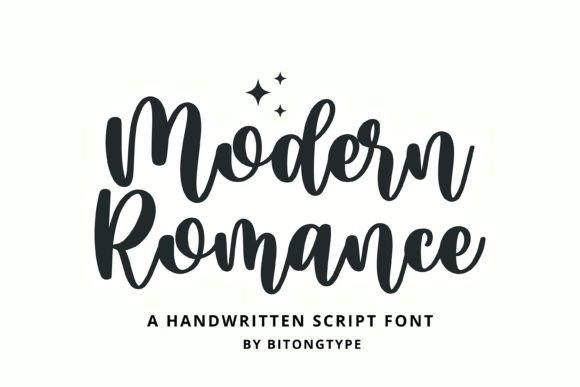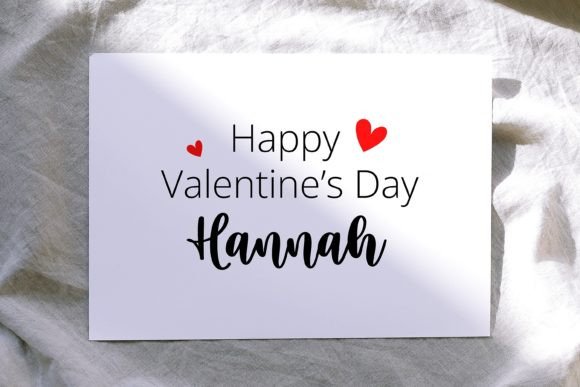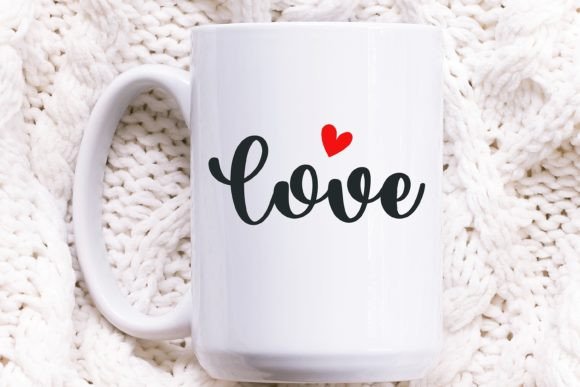
Modern Romance Font: Cute Handwritten Script for DIY & Cricut Projects
About the Modern Romance Font
Elevate your designs with Modern Romance Font, a font that combines sophistication with readability. Modern Romance is a cool, friendly, and informal handwritten font that can be used for all chalkboard quotes or teaching material! Its authentic look and feel will add a personal and realistic touch to your designs.
Modern Romance excels in applications requiring a friendly, approachable feel, such as short social media posts, invitations, or branding for artisan businesses. Its informal nature makes it ideal for projects emphasizing authenticity and a handcrafted aesthetic. However, avoid using it for large blocks of text or UI elements; its handwritten style reduces readability in extended passages.
This font pairs well with clean sans-serif fonts like Open Sans for a balanced contrast between the hand-drawn and the geometric. Alternatively, a classic serif like Garamond can add a touch of sophistication, grounding the informal energy of Modern Romance. Consider pairing it with a playful script for added visual interest in projects that allow for layered typography.
The font’s core personality is undeniably friendly and informal, conveying warmth and approachability. Its casual charm makes it unsuitable for projects requiring a formal or serious tone, but perfectly suited to brands that wish to project a sense of personal connection with their audience.
Modern Romance Font Usage Examples
Modern Romance Font Example